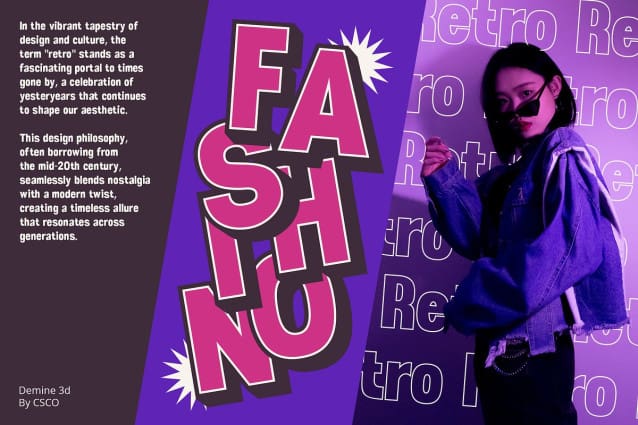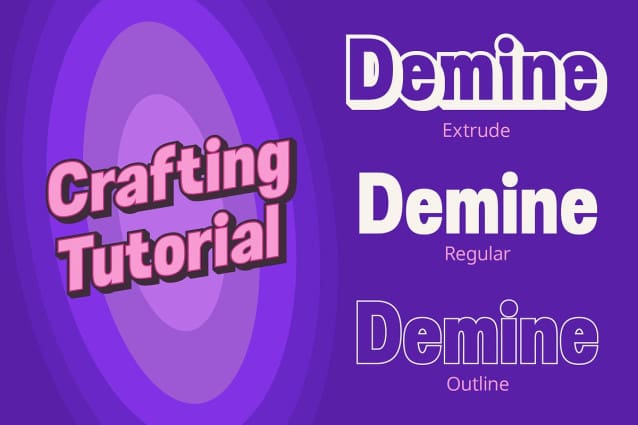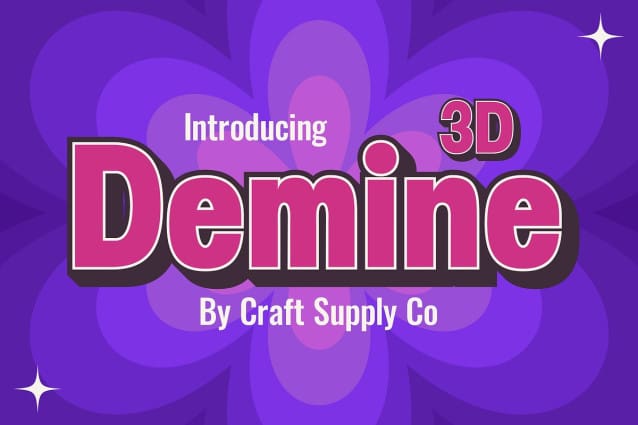
Demine 3D Font
Demine 3D Font: Bold Weight, Dimensional Impact. Powerful Visual Presence Demine3D, a sans-serif font, boasts bold and weighty shapes, leaving an immediate visual impact that demands attention.
Sculpted in Three Dimensions Experience the font like never before with its striking 3D effect. Each letter is meticulously crafted to add depth and dimension to your designs.
Commanding Attention with Boldness The inherent boldness of Demine 3D makes it an ideal choice when you need your message to be assertive and unmissable.
Versatility in Design Despite its commanding presence, Demine 3D adapts seamlessly to various design needs. From headlines to posters, it’s a versatile tool in your design arsenal.
Conclusion Demine 3D transcends traditional typography, combining bold shapes with a three-dimensional twist. This font ensures that your message is not just seen but experienced, making it a must-have for impactful designs.